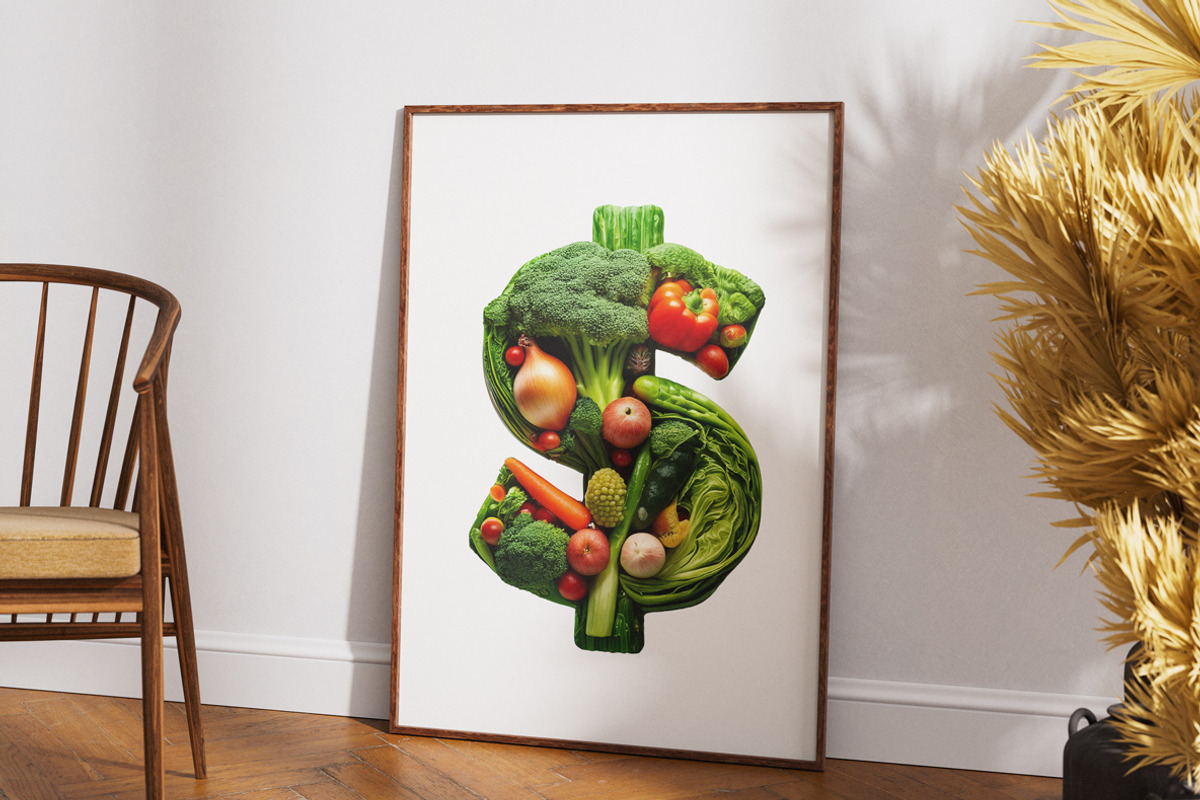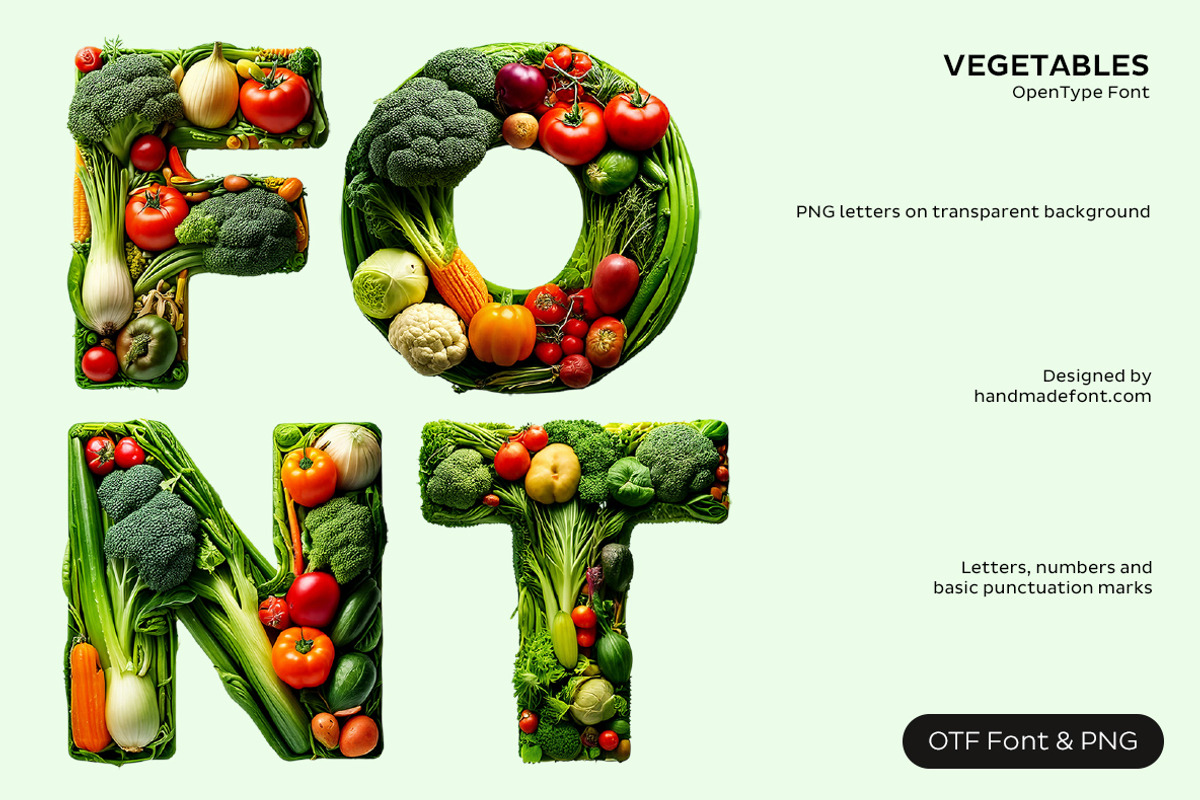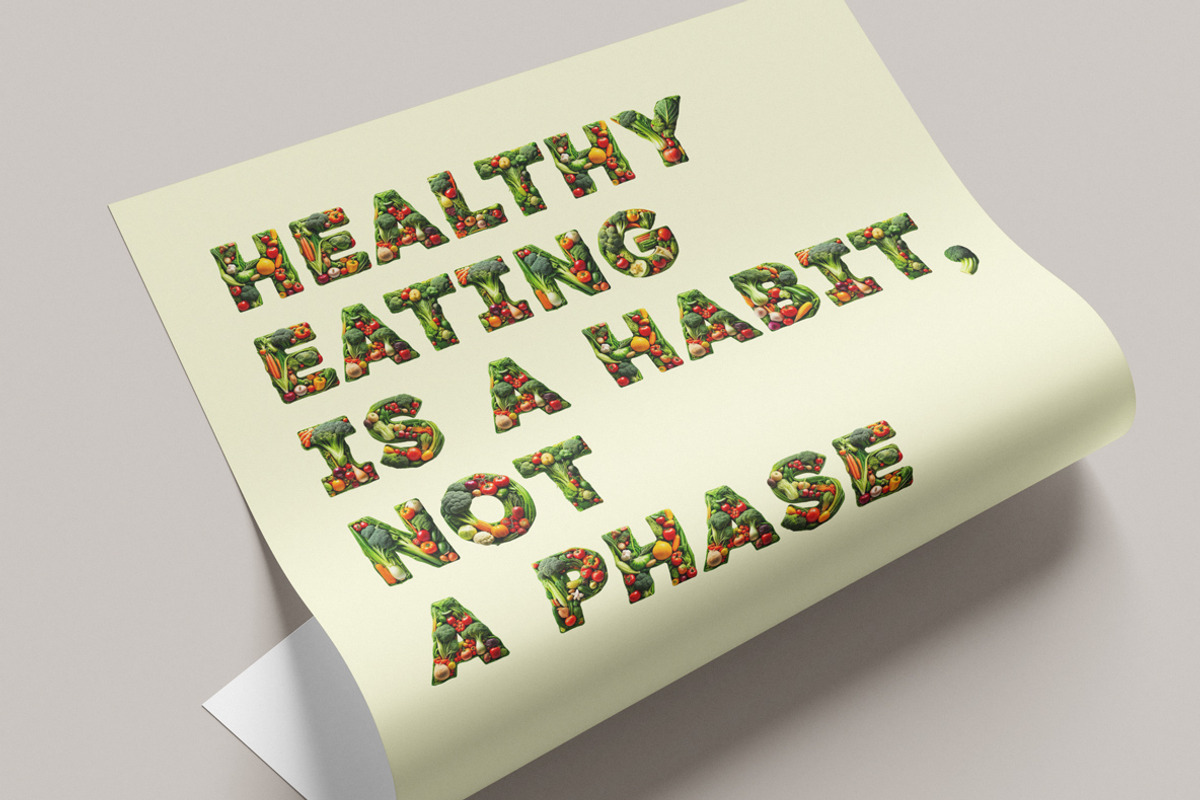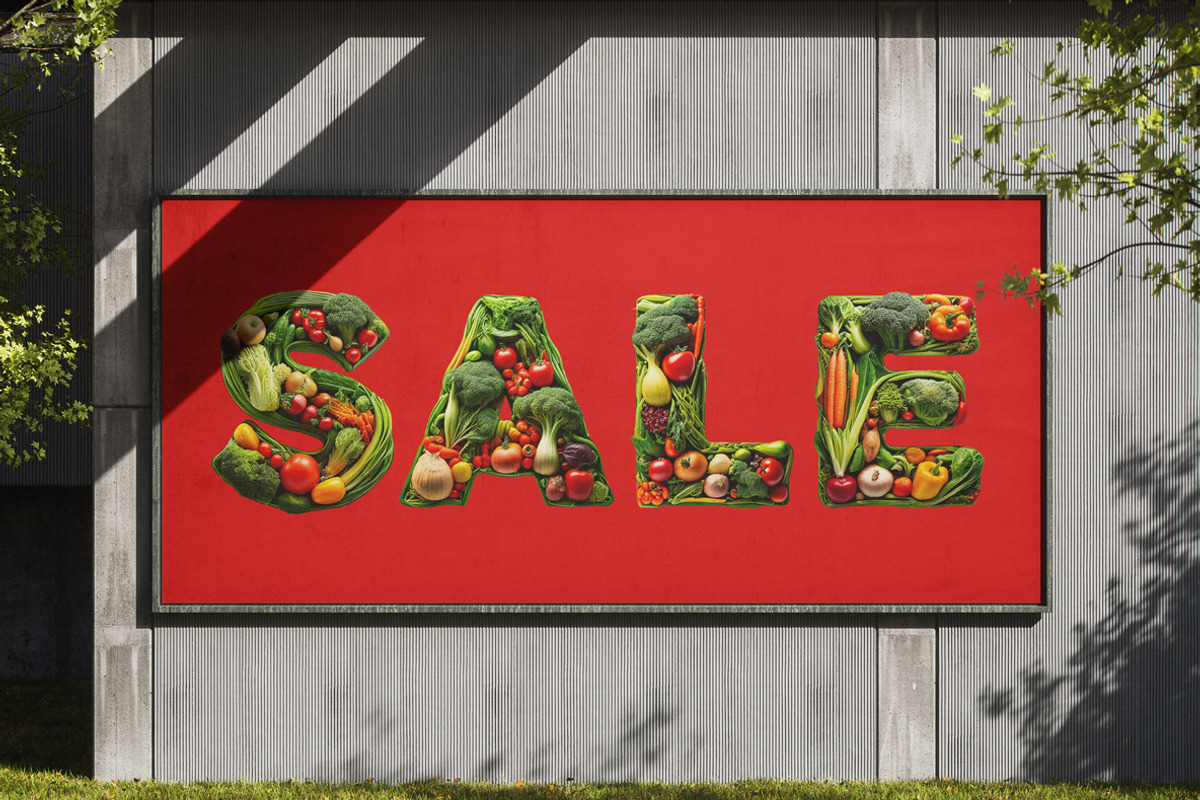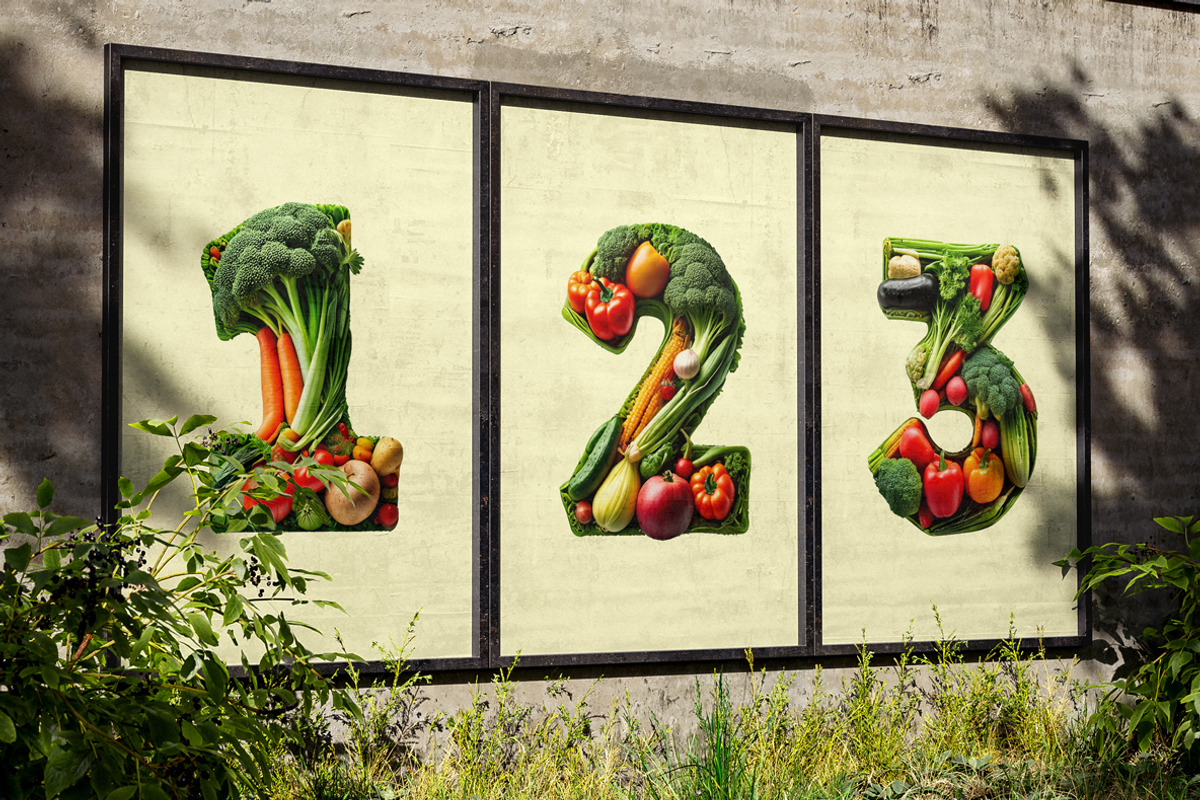
Vegetables Font
Vegetables Font is a lively and imaginative typeface that transforms fresh produce into expressive letterforms. Each character is built from a medley of colorful vegetables — crisp broccoli, ripe tomatoes, vibrant peppers, leafy greens, carrots, and more — creating a rich, organic texture with a natural, farm-fresh aesthetic. This font radiates health, sustainability, and creativity, making it an ideal choice for food brands, organic markets, eco-conscious projects, and playful design concepts. Whether used for restaurant branding, packaging, or promotional materials, Vegetables Font delivers a bold, flavorful visual impact. It’s typography you can almost taste — wholesome, creative, and full of life.
A high definition OpenType Font. Contains uppercase characters, numerals and basic punctuation. (Draw height roughly 800 pixels). All letters and glyphs that comprises this font you can see on the preview.